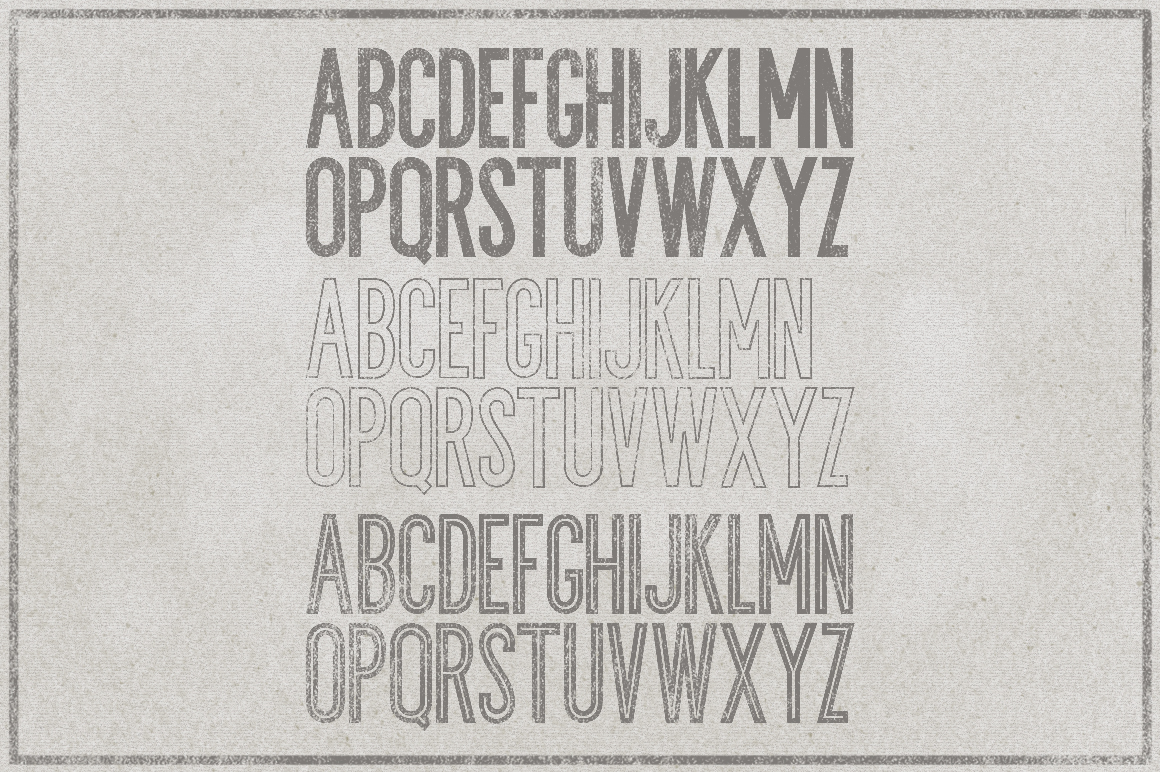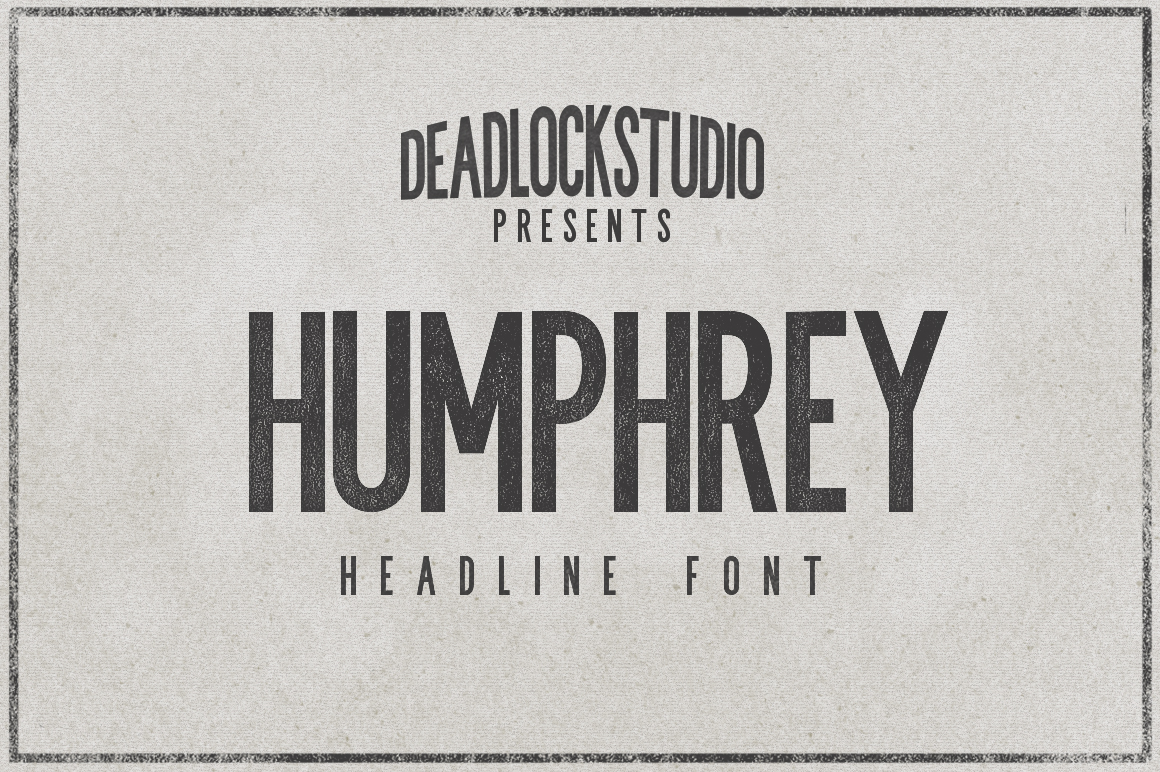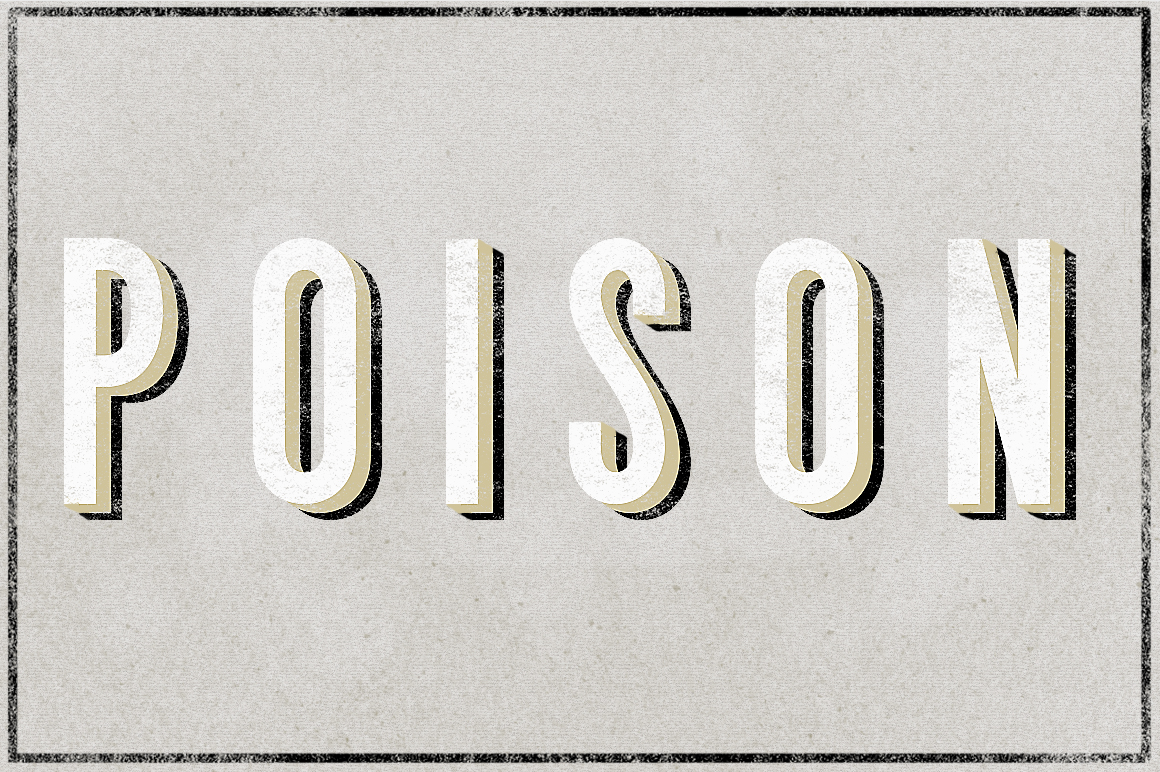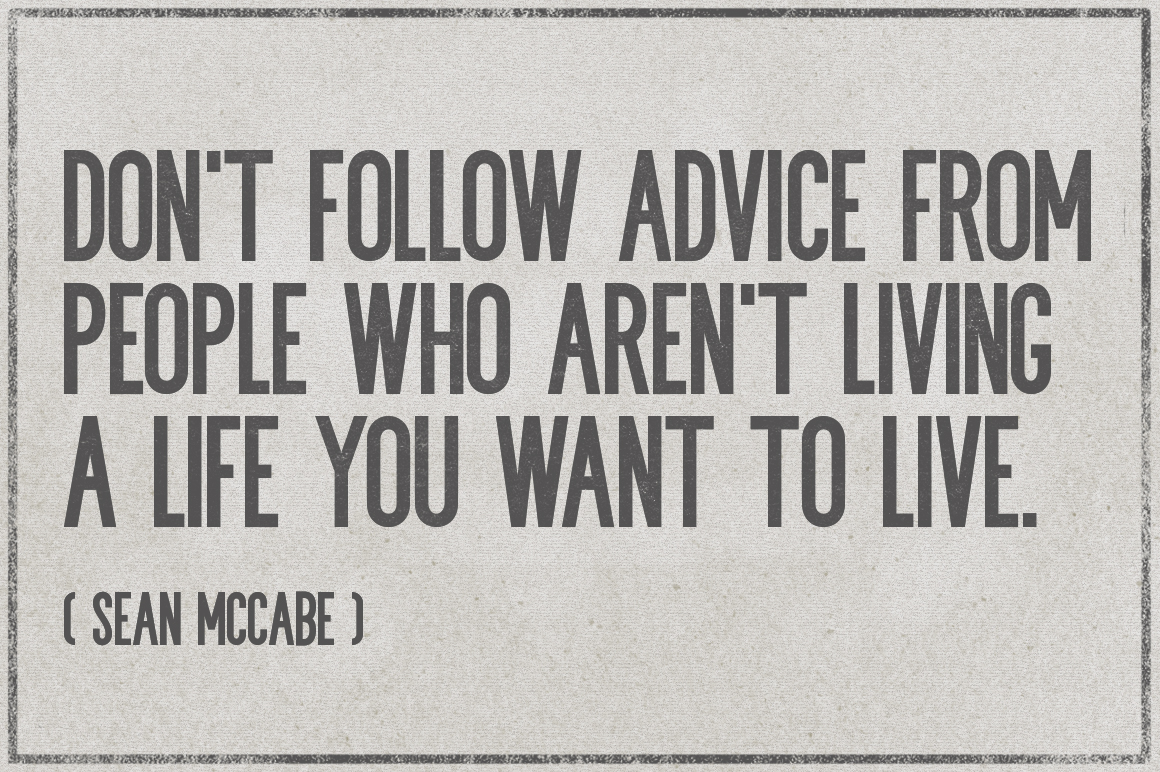
Humphrey Family (3 fonts)
From Deadlock Studio
Humphrey is a simple All-Caps font, it was made to create headline title magazines or posters. Available in 3 styles
( regular, inline, outline ) with OTF and TTF format.